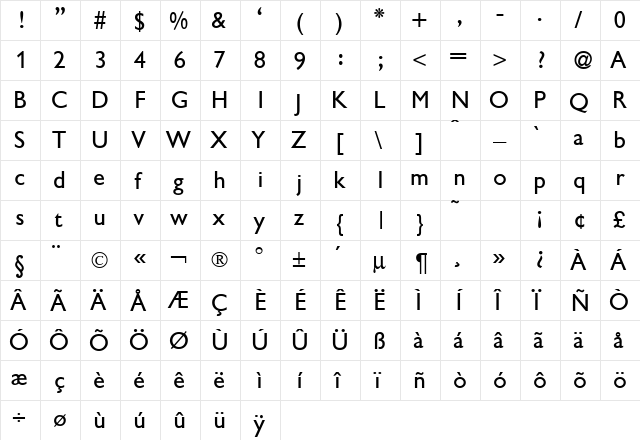
GillionDB Normal
Design Context for GillionDB Typeface
GillionDB is a composed and adaptable typeface that performs quietly and consistently across a wide range of design contexts.